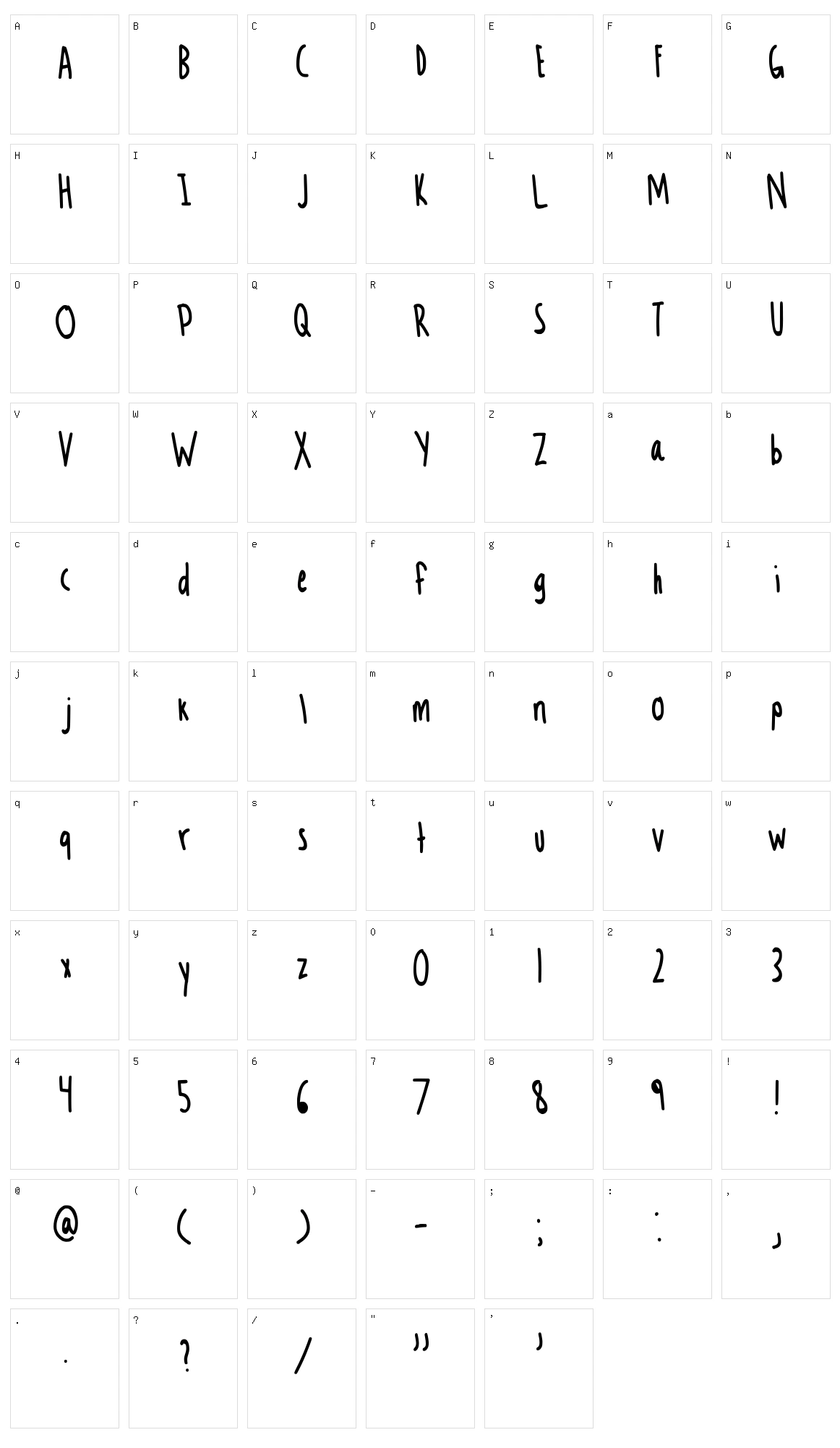
The free font Yeet is carefully designed by Atlas, showcasing a thoughtful balance of creativity and usability and falls under the Script font style. When you download the ZIP file, it contains only 9.4 KB of font files, making it lightweight and quick to download. Please review the license details below to understand permitted usage and distribution rights. If license information is not available, we recommend using this font for personal projects only or contacting the author directly for commercial usage permissions.